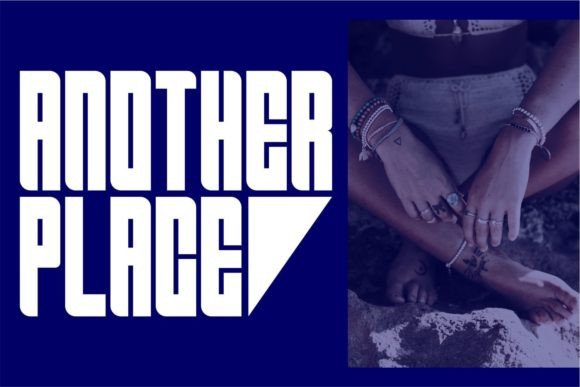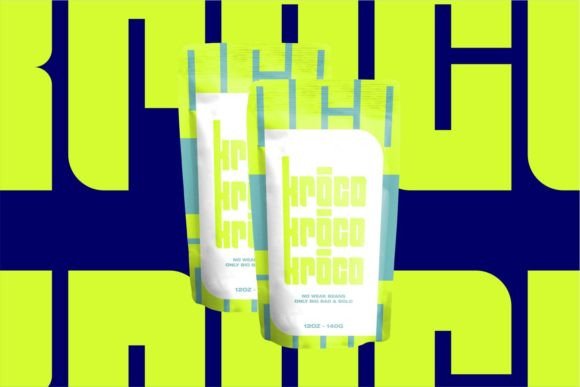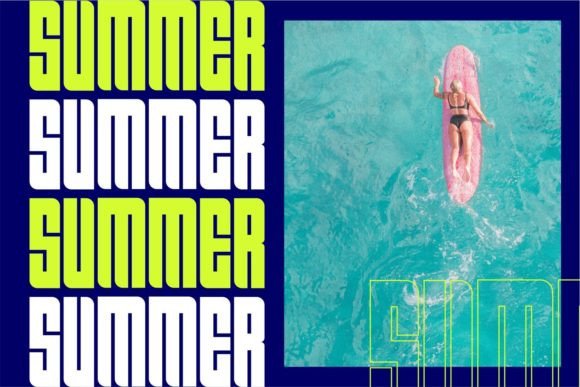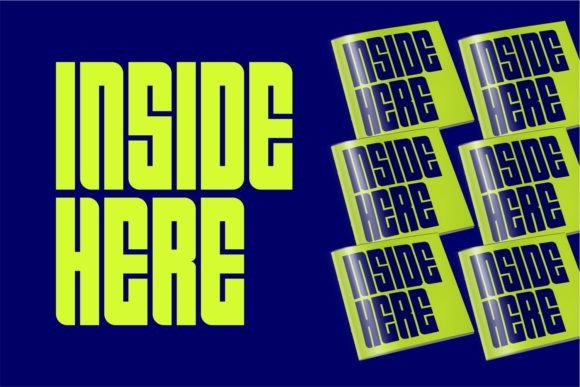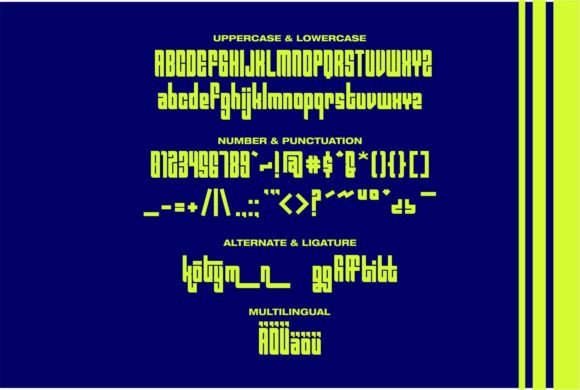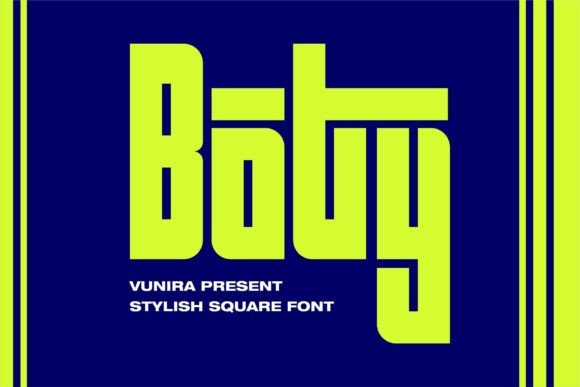
The Quest for the Perfect Font: How Boty Font Became My Go-To
I still remember the design project that led me to discover Boty Font. I was working on a futuristic sci-fi poster, and I was struggling to find a font that captured the essence of innovation and style. My client wanted something fresh, something that would make their brand stand out in a crowded market. After hours of scouring font websites and trying out different options, I stumbled upon Boty Font. Its sleek, modern design and futuristic vibe immediately caught my attention. I knew I had found the perfect fit.
An Honest Review of Boty Font
- ✨ Fresh and futuristic look that’s perfect for sci-fi and innovative projects
- 💻 Great for digital and print use, with a wide range of applications
- 🎨 Versatile and can be used for titles, headings, and even body text
While Boty Font is an excellent choice for many projects, it’s not without its quirks. For example:
- 🤔 Some users may find the font a bit too condensed for certain applications
- ⚠️ Limited support for non-English characters, which may be a concern for international users
The Story Behind Boty Font
Boty Font was designed by a team of typographers who wanted to create a font that captured the essence of innovation and style. The font was inspired by the futuristic and sci-fi themes that are popular in design and popular culture. The designers aimed to create a font that’s both fresh and highly legible, making it perfect for a wide range of applications.
Q: What is Boty Font?
A: Boty Font is a stylish and cool display font that’s perfect for sci-fi and innovative projects.